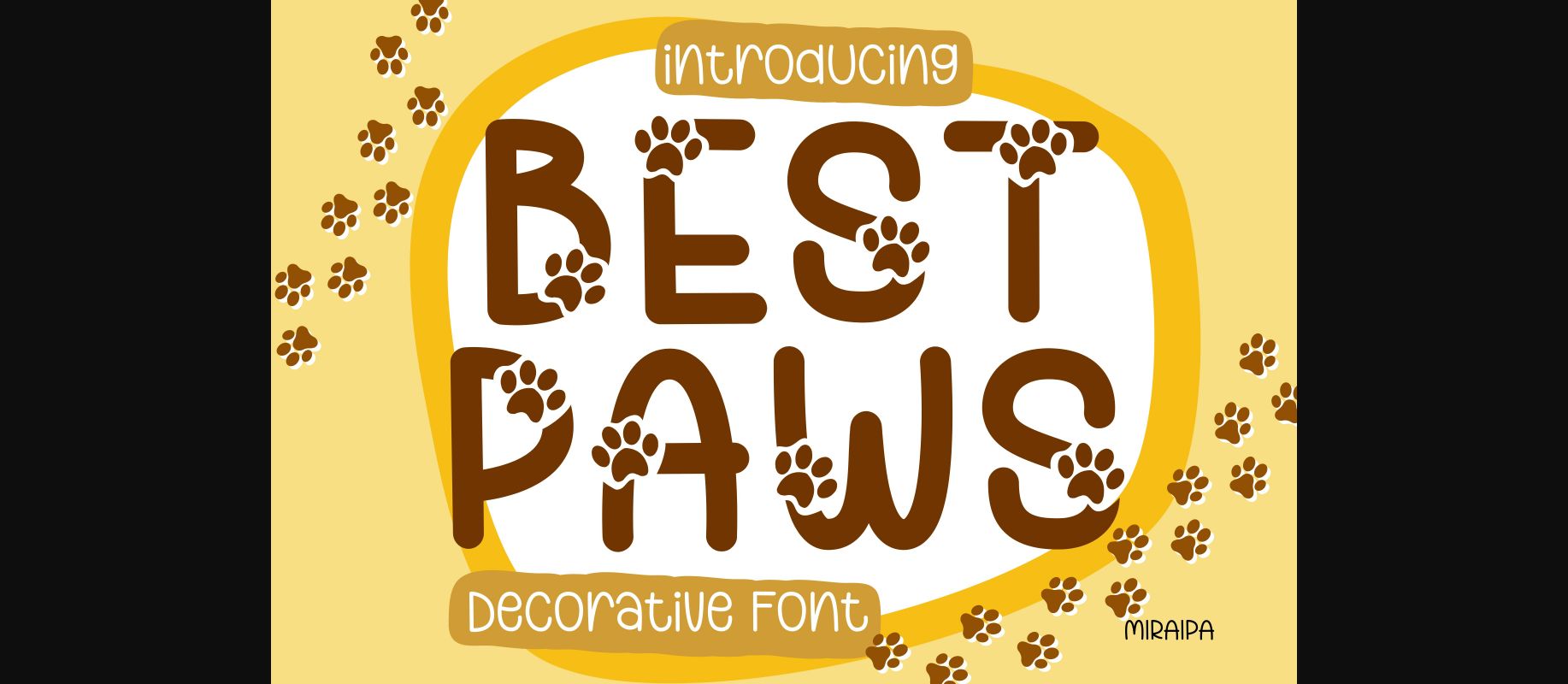
About Best Paws Font
Best Paws is a friendly and cute handwritten decorative font. Add it to your creative ideas and you will be amazed by the outcome generated!